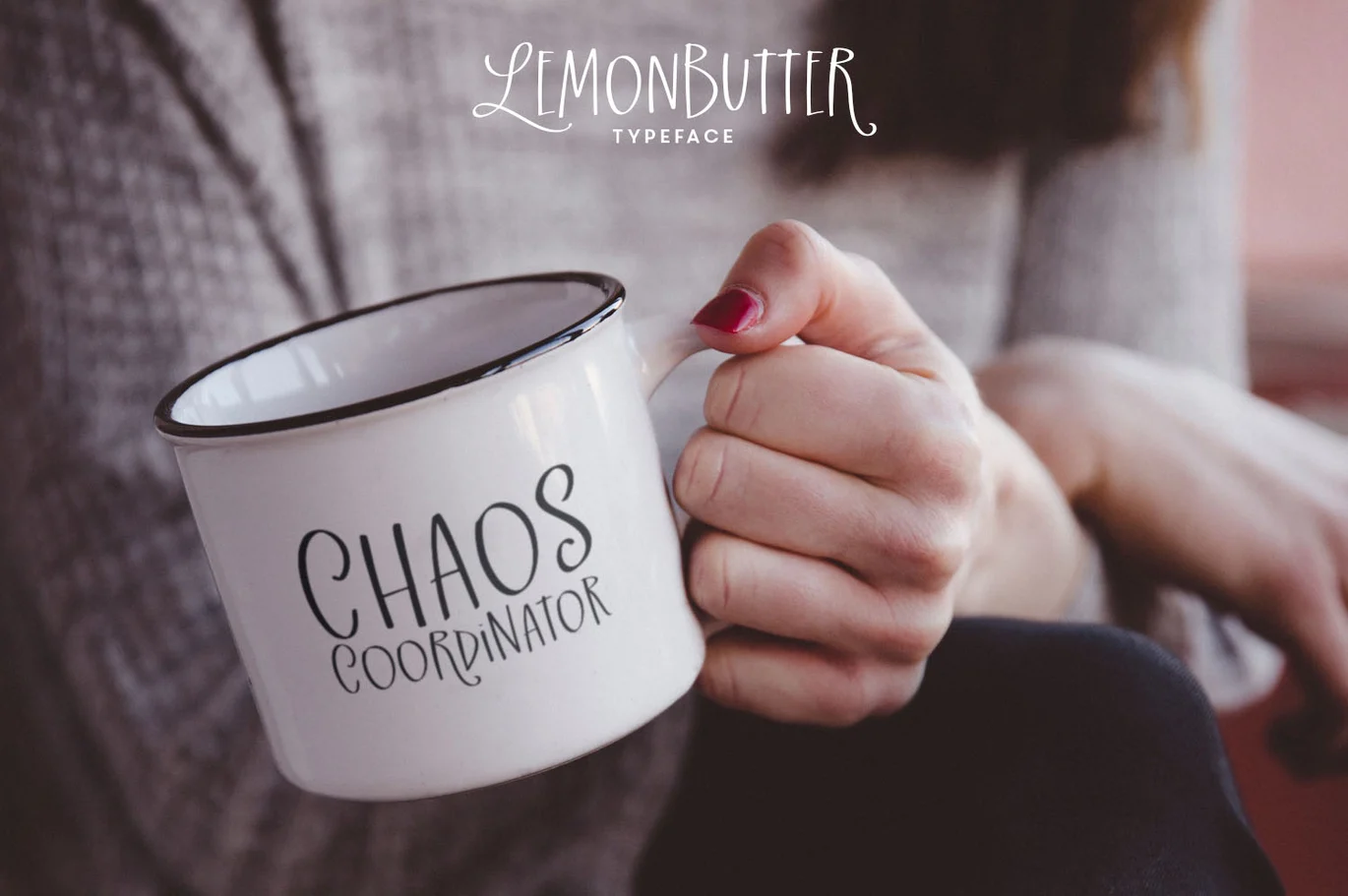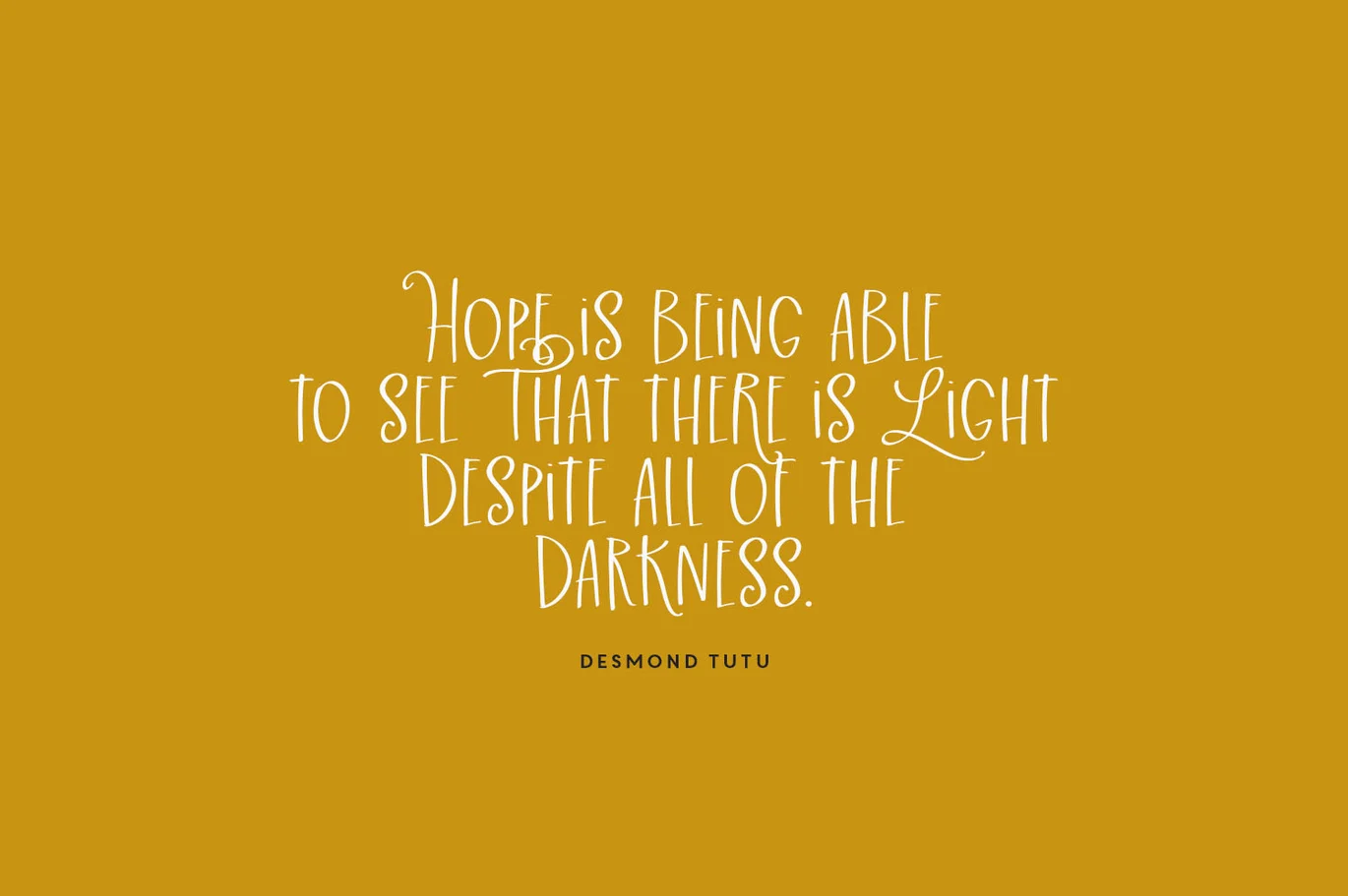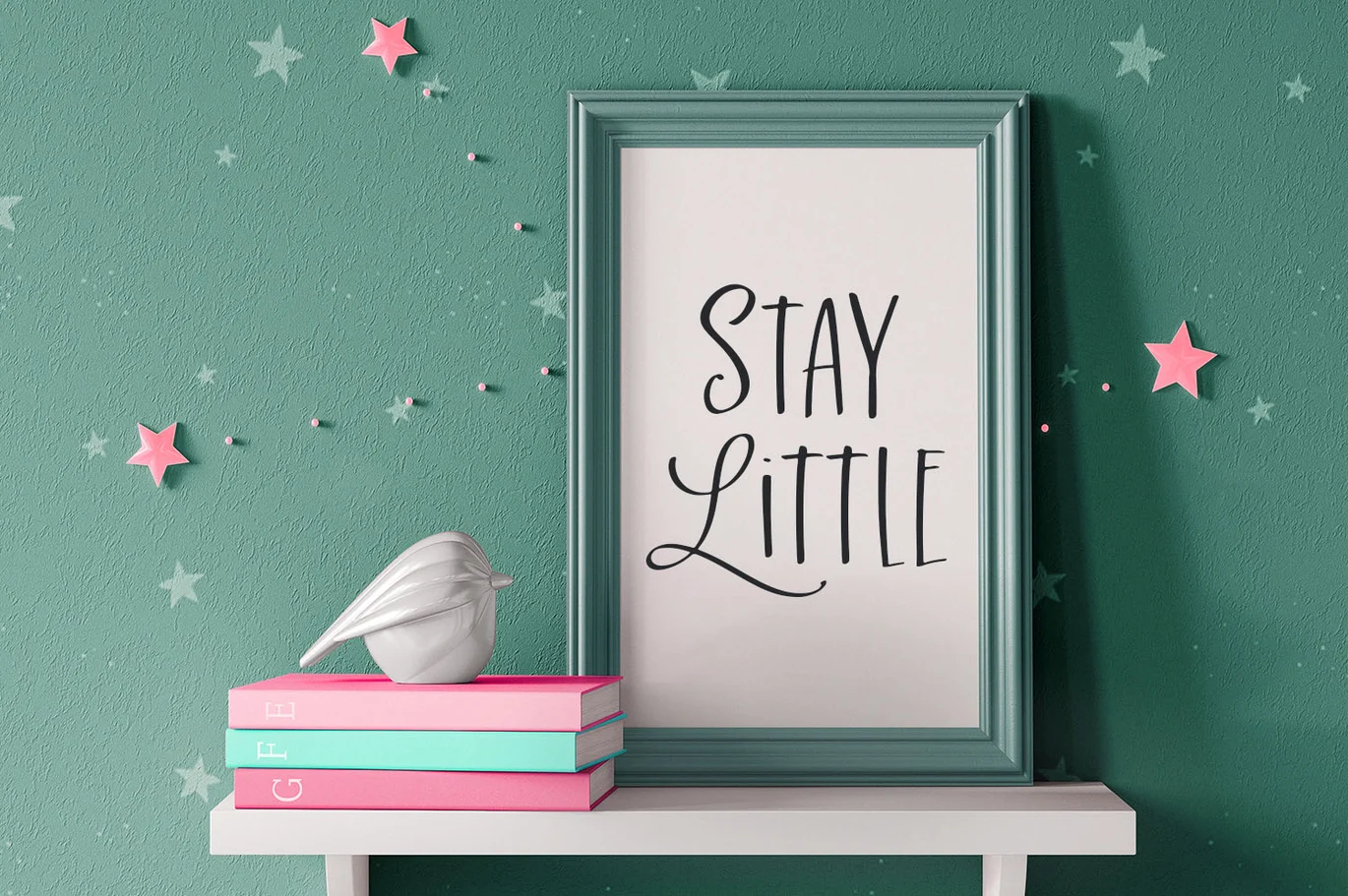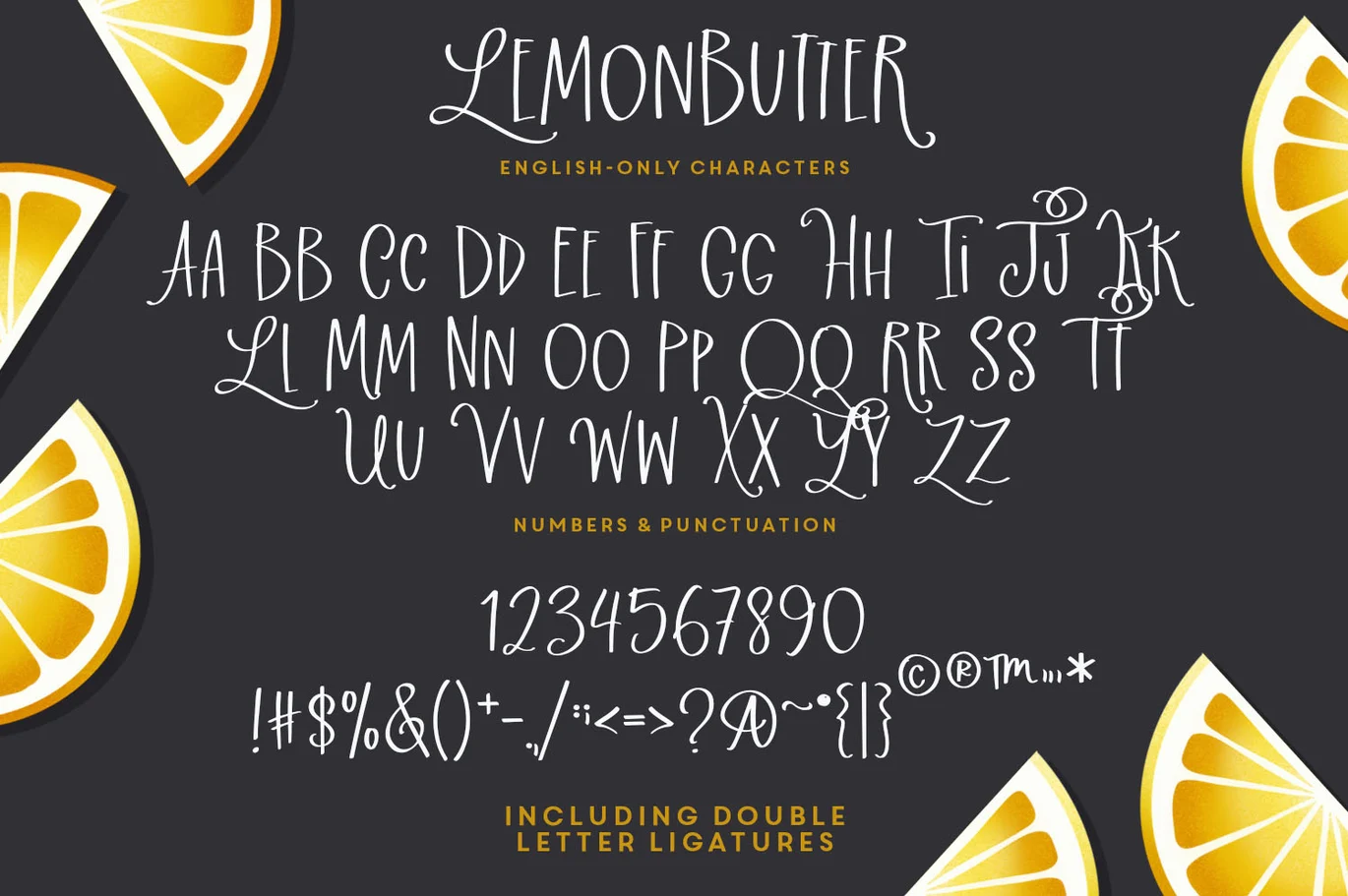
Lemonbutter Typeface Font
Introducing Lemonbutter Typeface - a silly, clean, sans serif handwriting font that works so well for quotes, logos and social media.
- Double Letter Ligatures